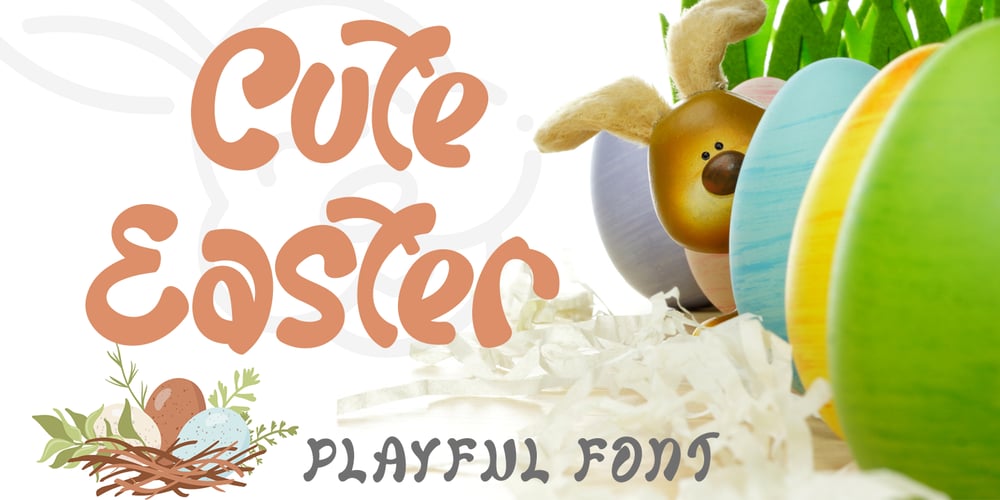
Cute Easter Font Family was designed by Isroni Yoga Prasetya and published by Yoga Letter. Cute Easter contains 1 styles and family package options. “Cute Easter” is a unique and playful display font. The letters in this font are so cute because they have been specially designed. This font is equipped with uppercase, lowercase letters, numerals and punctuations, and multilingual support. Can be used for Easter moments, greeting cards, cartoons, comics, movie titles, and more.